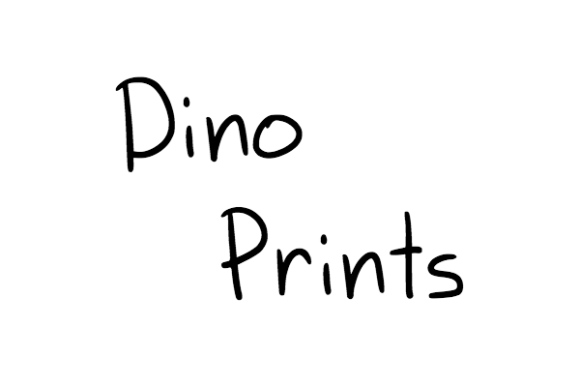
Dino Prints Font: Adding a Touch of Youthful Energy to Your Designs
Are you looking for a font that can add a playful and youthful touch to your designs? Look no further than the Dino Prints font. This fun, authentic handwriting-style font is perfect for comics, children’s books, and other projects that require a dash of energy and whimsy.
What is Dino Prints Font?
The Dino Prints font is a handwriting-style font that is designed to mimic the look of children’s handwriting. It’s a fun and playful font that is perfect for designers and crafters who want to add a personal touch to their work. The font is made up of bold, expressive letters that are sure to grab attention.
Characteristics of Dino Prints Font
The Dino Prints font has several characteristics that make it stand out from other fonts. Some of its key features include:
- Handwriting-style: The font has a handwriting-style look that gives it a personal and playful feel.
- Bold and expressive letters: The letters in the font are bold and expressive, making it perfect for designs that require a lot of energy and movement.
- Youthful energy: The font has a youthful and playful vibe that makes it perfect for designs aimed at children or young adults.
Uses for Dino Prints Font
The Dino Prints font is a versatile font that can be used in a variety of designs. Some of the most popular uses for the font include:
- Comics and graphic novels: The font is perfect for comics and graphic novels that require a playful and energetic look.
- Children’s books: The font is great for children’s books, as it’s fun and easy to read.
- Posters and flyers: The font is perfect for posters and flyers that require a bold and attention-grabbing look.
- Crafting and DIY projects: The font is great for crafting and DIY projects, such as making signs, banners, and other decorative items.
Why Choose Dino Prints Font?
There are many reasons why you should choose the Dino Prints font for your designs. Some of the benefits of using the font include:
- Unique and playful look: The font has a unique and playful look that will set your designs apart from others.
- Easy to read: The font is easy to read, making it perfect for designs that require a lot of text.
- Versatile: The font is versatile and can be used in a variety of designs.
Tips for Using Dino Prints Font
Here are some tips for using the Dino Prints font in your designs:
- Use it sparingly: The font is bold and playful, so use it sparingly to avoid overwhelming your design.
- Pair it with other fonts: The font pairs well with other fonts, so try pairing it with a serif font for a contrasting look.
- Experiment with colors: The font looks great in a variety of colors, so experiment with different colors to find the one that works best for your design.
| Font Name | Dino Prints Font |
| Author | Marlee Pagels |
The Dino Prints font is a fun and playful font that’s perfect for designers and crafters who want to add a touch of youthful energy to their designs. With its bold and expressive letters, handwriting-style look, and versatility, it’s a great choice for a variety of designs. Whether you’re working on a comic, a children’s book, or a crafting project, the Dino Prints font is sure to bring a smile to your face and a touch of whimsy to your work.